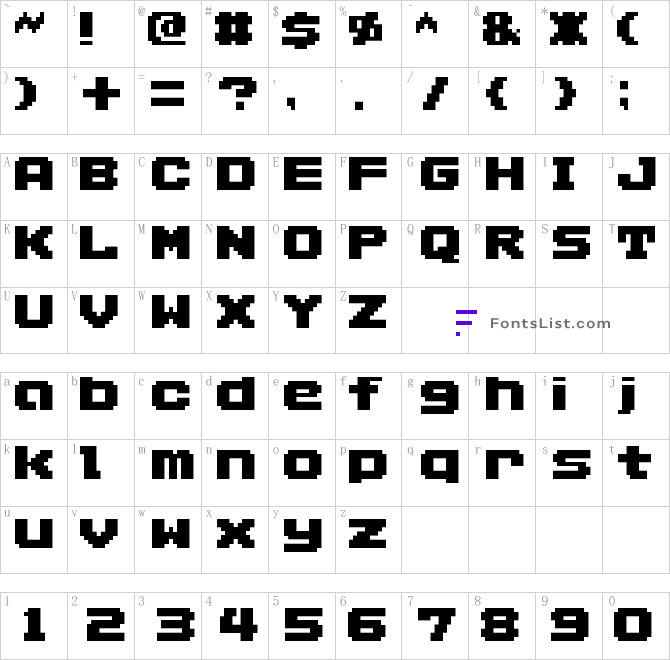
- Font Name:AddLGBitmap09
AddLGBitmap09.ttf is a very beautiful artistic font, AddLGBitmap09.ttf is widely used in the design and printing of various books and pictures,AddLGBitmap09.ttf has a strong visual impact,AddLGBitmap09.ttf is a commonly used font in newspapers, magazines and books, and is used in posters, e-commerce Poster design, store design, logo design, font design and other fields.AddLGBitmap09.